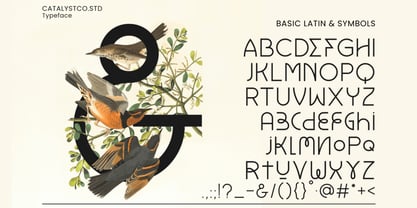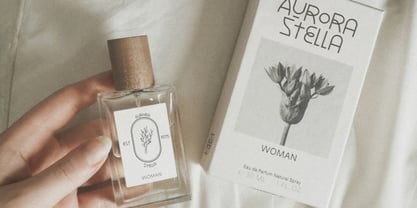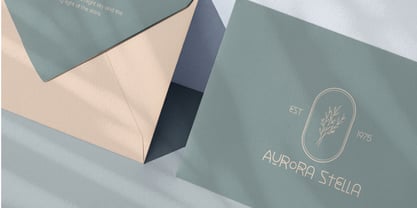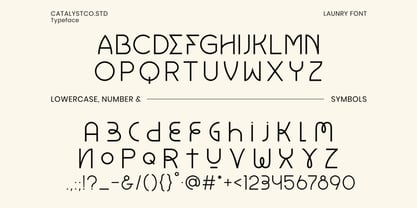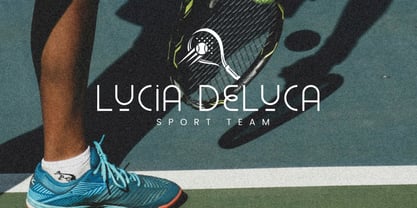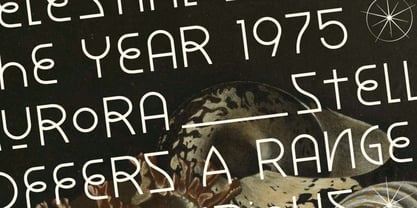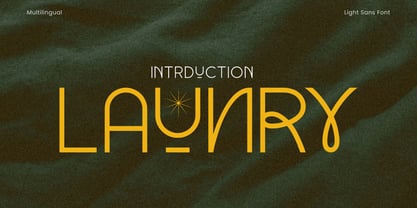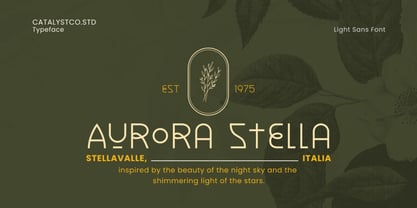
Launry
The Launry Light Sans Font is a premium typeface designed to elevate your creative projects. Perfect for manufacturing quotes, logotypes, magazine headers, and more, this font brings a professional and refined touch to any design.  With features like Open Type format support, a complete set of uppercase and lowercase letters, stylistic ligatures, alternates, multilingual support, and numerals with punctuation, it ensures adaptability and precision. Whether you're crafting brand identities, editorial layouts, or stand out typography, Hendritage Modern Script Font delivers exceptional results for polished, high-quality designs.